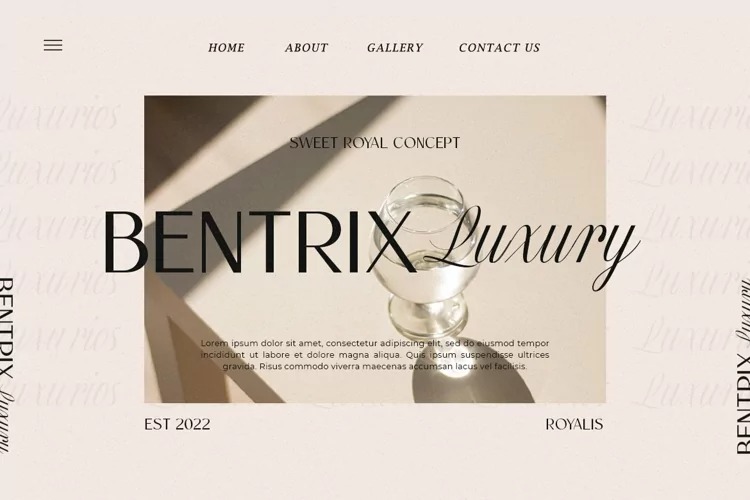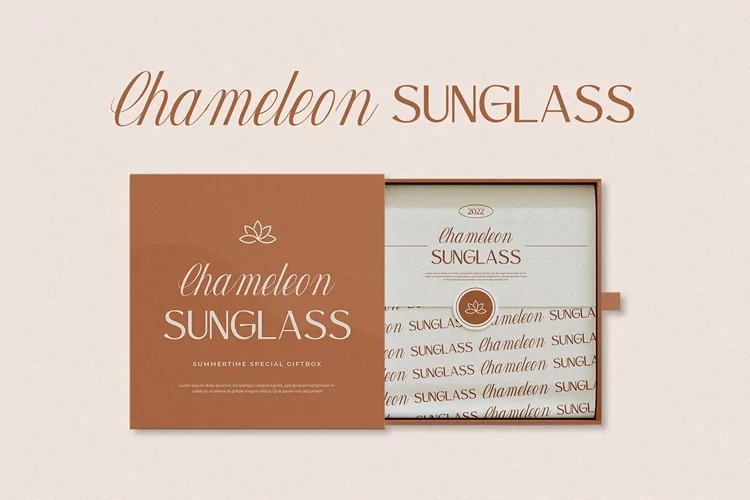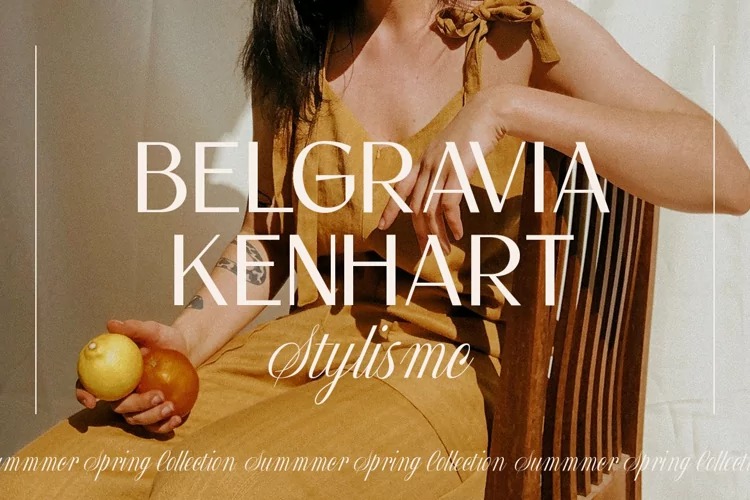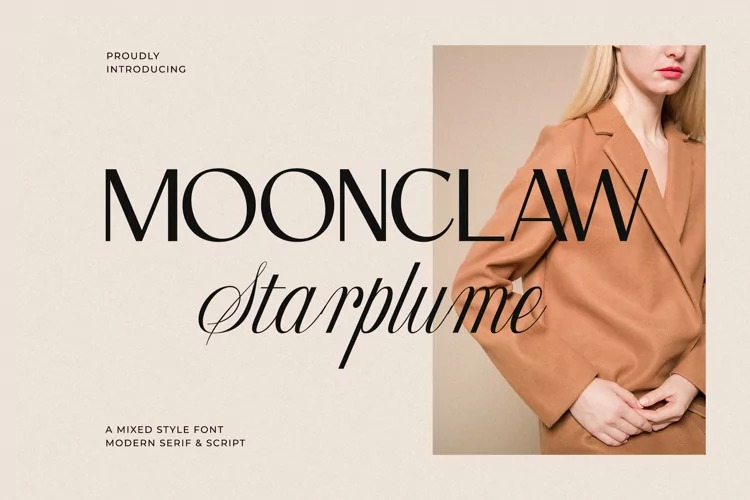
Moonclaw Starplume Font
Moonclaw Starplume Font is a modern sans serif typeface with bohemian motives. The font is created in classic proportions and decorated with elegant decor. No matter the topic, this font will be an incredible asset to your fonts’ library, as it has the potential to elevate any creation.